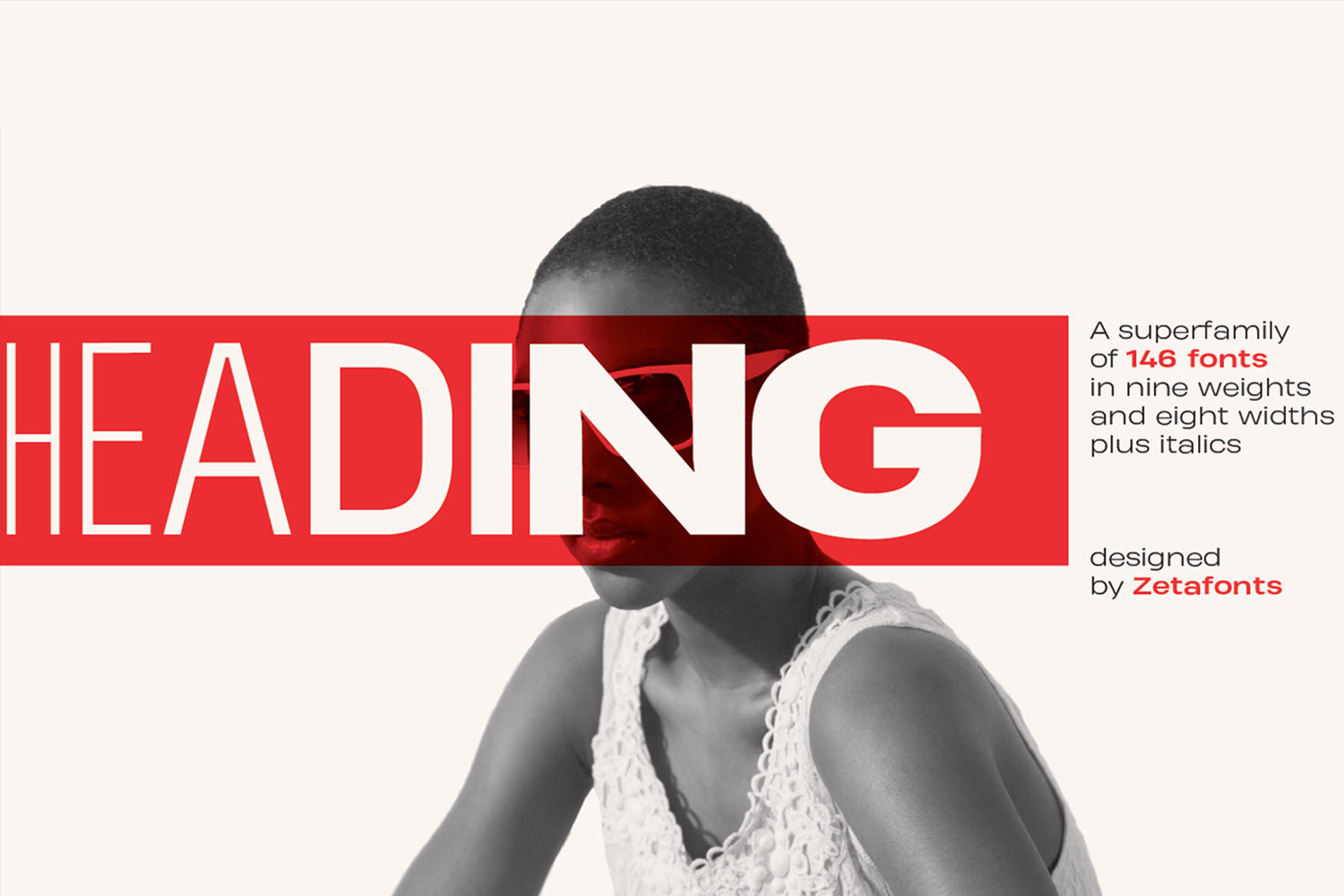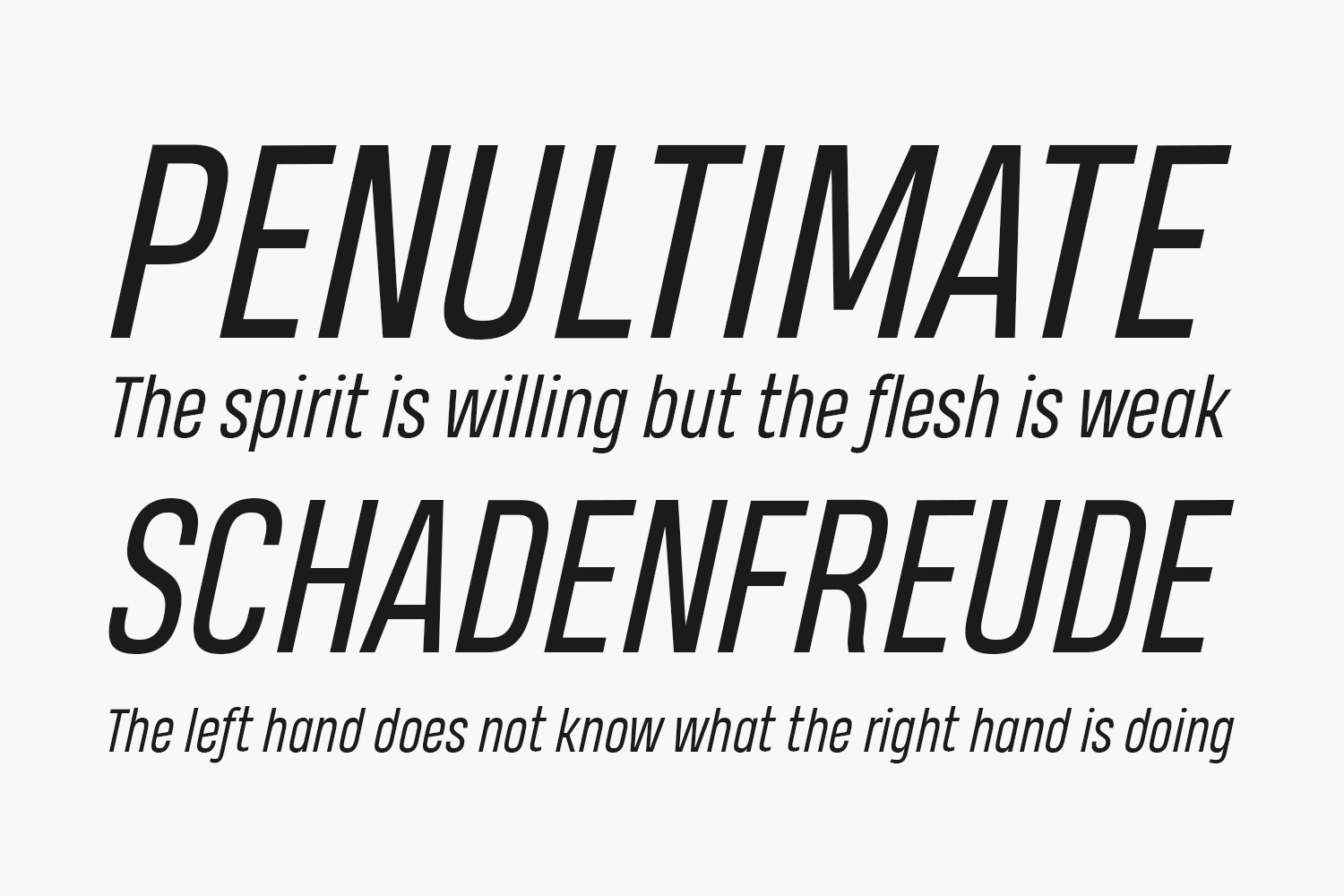
Heading Pro Free Font Family is designed by Francesco Canovaro for Zetafonts. It’s a geometric condensed typeface with high legibility and a powerful personality.